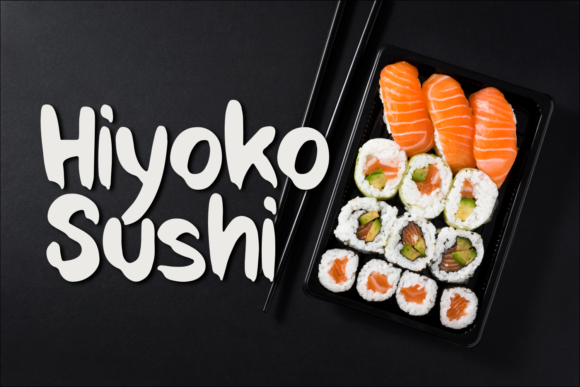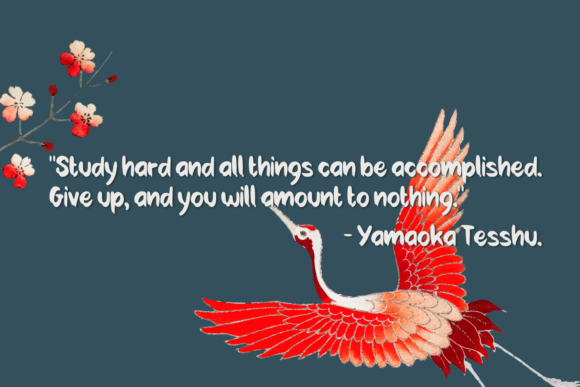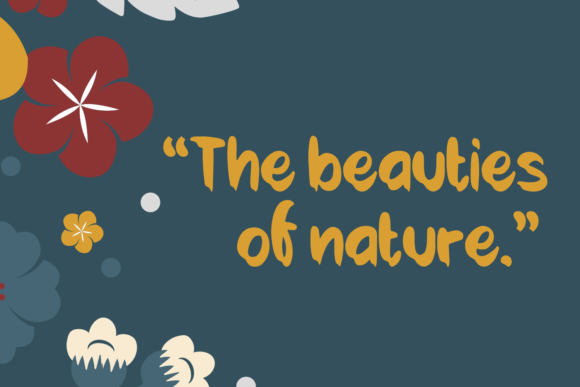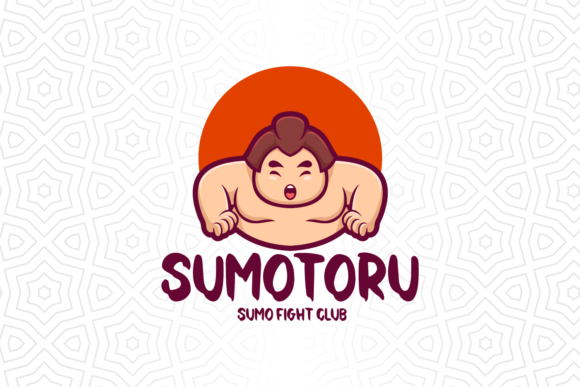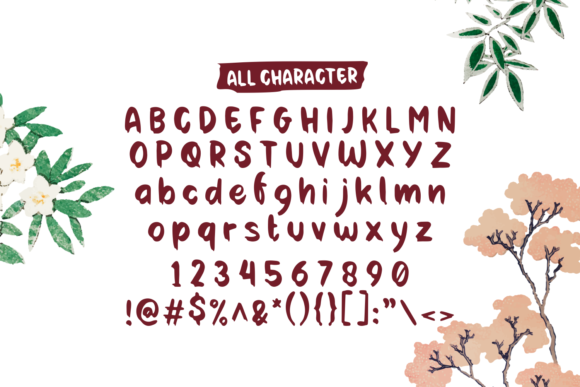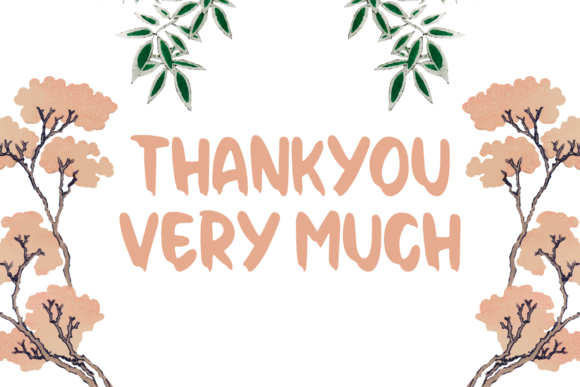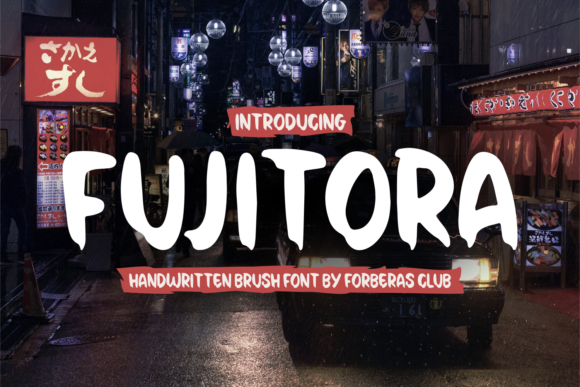
Fujitora Font: The Fun and Friendly Paint Brushed Display Font
Are you tired of using the same old fonts for your designs? Look no further! Introducing Fujitora, a fun and friendly paint brushed display font that’s sure to make your creations stand out. With its simple yet strong visual effect, Fujitora is the perfect addition to any design project.
What is Fujitora Font?
Fujitora is a display font that mimics the look of paint brushed strokes. Its unique and playful design makes it perfect for headlines, titles, and any other text that needs to grab attention. The font is designed to be simple, yet effective, making it easy to read and understand.
Key Features of Fujitora Font
• Fun and Friendly Design: Fujitora has a playful and approachable design that’s sure to bring a smile to your face.
• Paint Brushed Effect: The font’s paint brushed strokes give it a unique and textured look that’s perfect for adding a personal touch to your designs.
• Simple yet Effective: Fujitora’s simple design makes it easy to read and understand, while its strong visual effect ensures it grabs attention.
• Highly Versatile: The font is perfect for a wide range of design projects, from posters and flyers to social media graphics and website headers.
Why Use Fujitora Font?
There are many reasons why you should consider using Fujitora font in your designs. Here are just a few:
• Add a Personal Touch: Fujitora’s unique design allows you to add a personal touch to your designs, making them more relatable and engaging.
• Stand Out from the Crowd: With its strong visual effect, Fujitora is sure to make your designs stand out from the crowd.
Design Ideas Using Fujitora Font
Fujitora font is perfect for a wide range of design projects. Here are some ideas to get you started:
• Posters and Flyers: Use Fujitora to create eye-catching posters and flyers for events, promotions, and more.
• Social Media Graphics: Use Fujitora to create engaging social media graphics that grab attention.
• Website Headers: Use Fujitora to create unique and memorable website headers.
• Logos and Branding: Use Fujitora to create custom logos and branding materials that reflect your brand’s personality.
In conclusion, Fujitora font is a fun and friendly paint brushed display font that’s perfect for designers and crafters who want to add a unique touch to their designs. With its simple yet strong visual effect, Fujitora is sure to make your creations stand out from the crowd. So why wait? Download Fujitora font today and start creating!